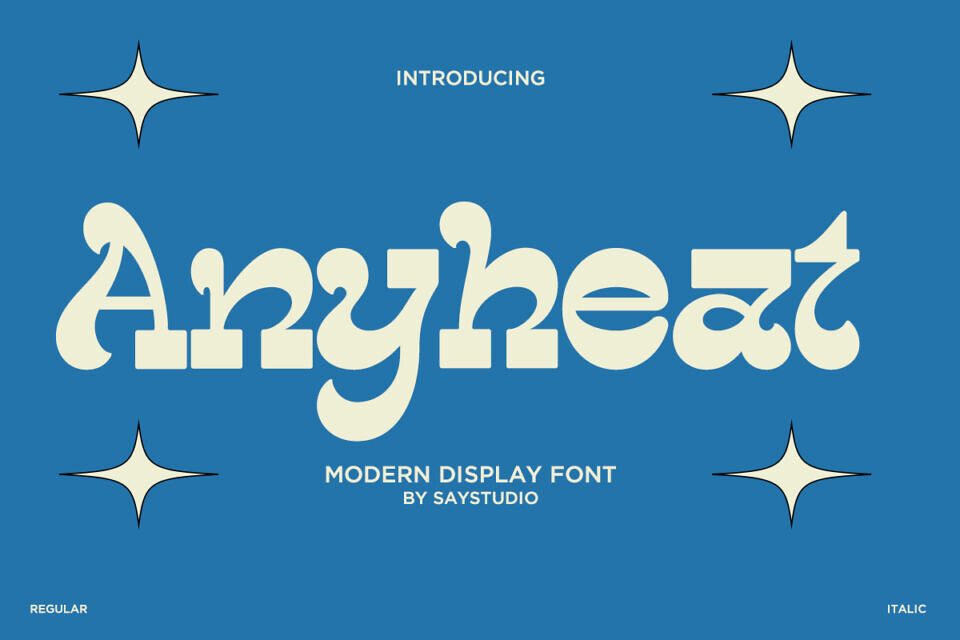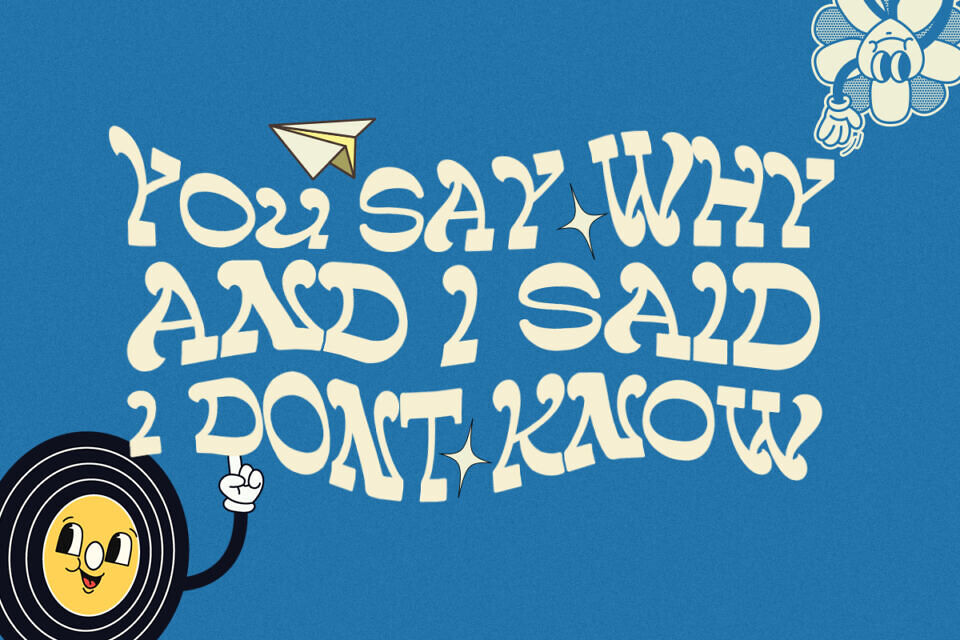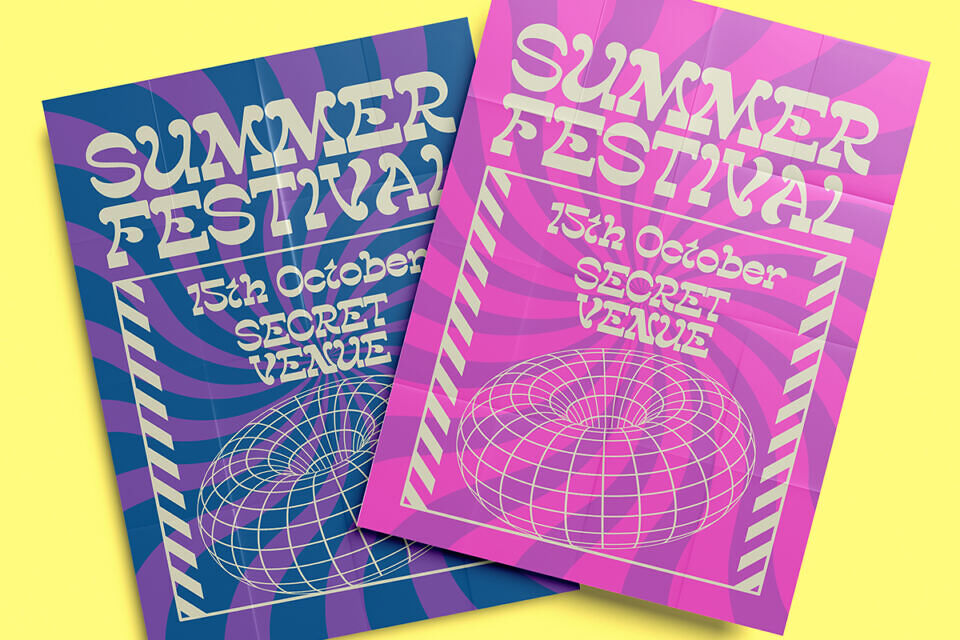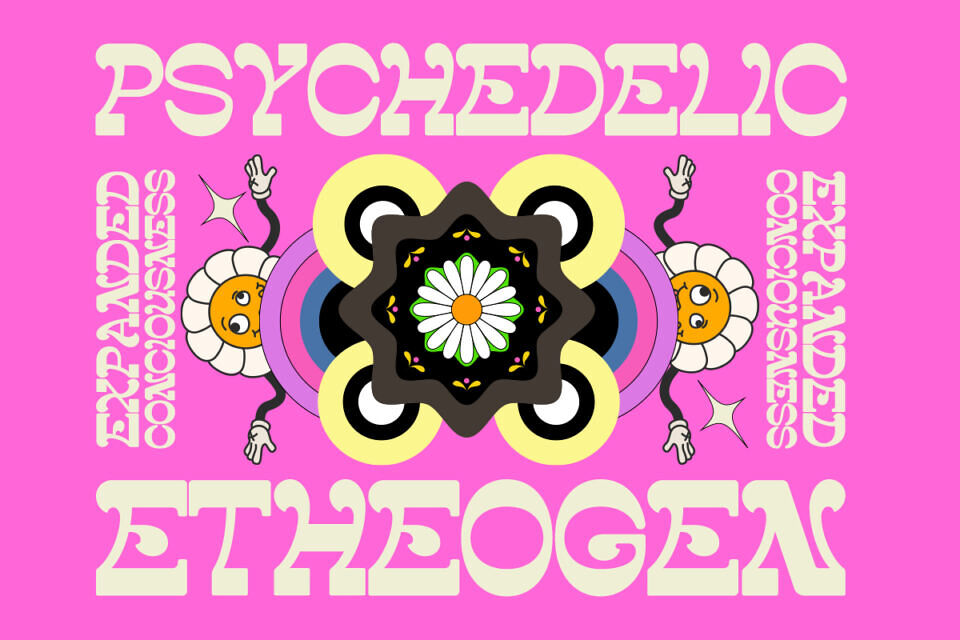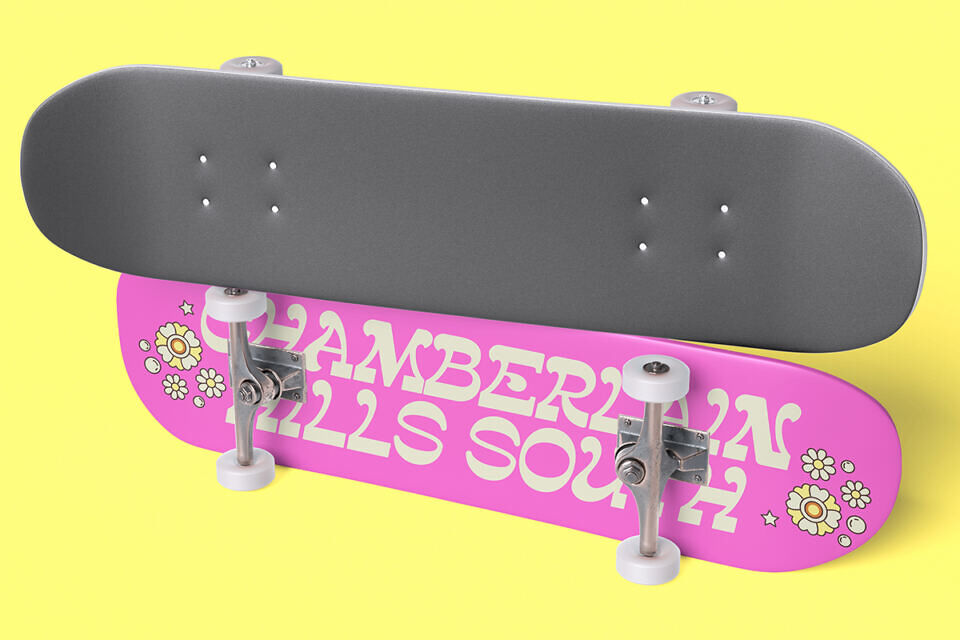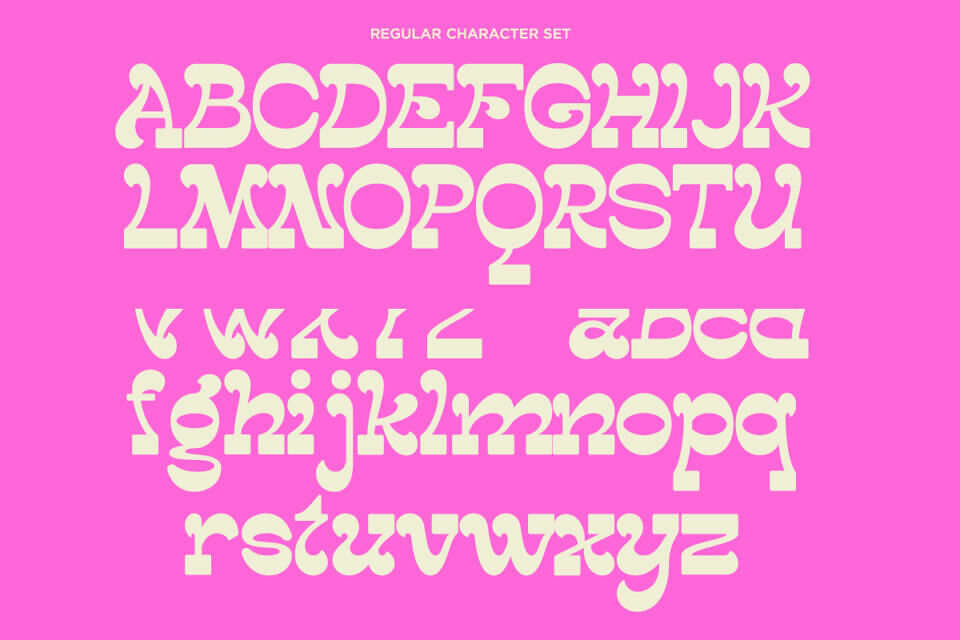
Anyheat is a captivating modern display font that beautifully blends the psychedelic, fluid curves of the 1970s with a polished contemporary aesthetic, perfect for designs that aim to feel retro-chic.
This striking Anyheat font features exaggerated, flowing forms and robust letter shapes that give it an irresistible, groovy charm and high visual impact. Available in Regular and Italic styles, the versatility of the Anyheat typeface makes it ideal for bold branding, music album covers, eye-catching editorial headlines, and stylish product packaging that demands attention.